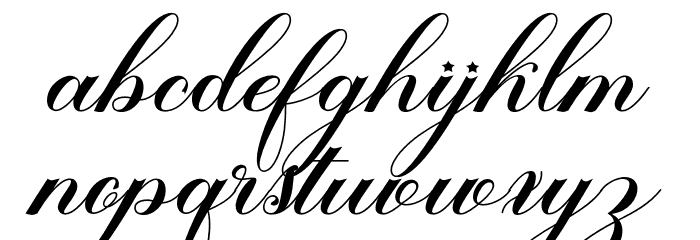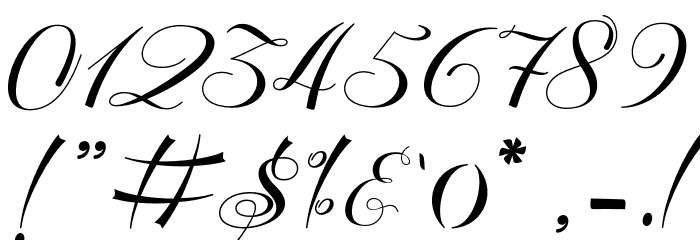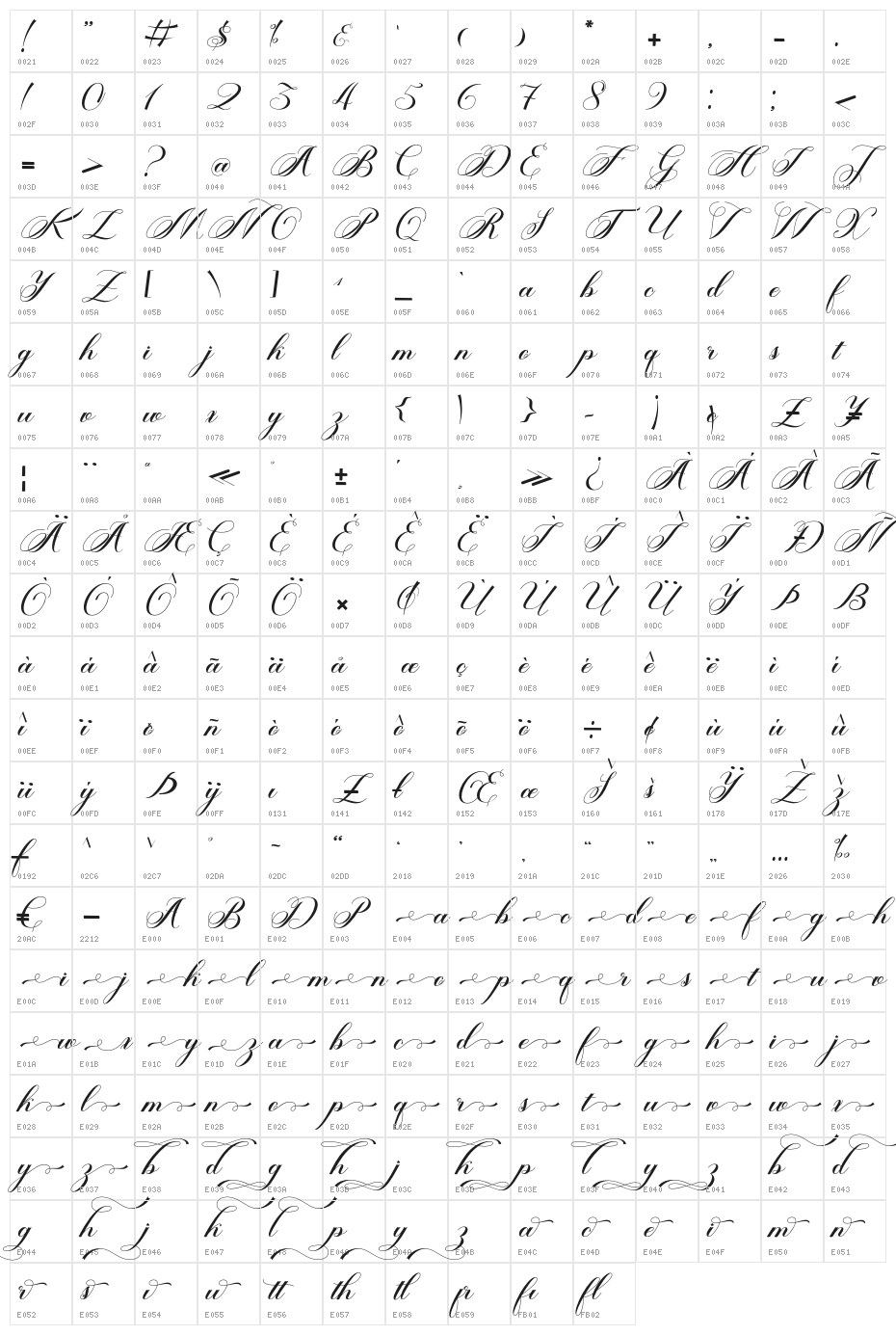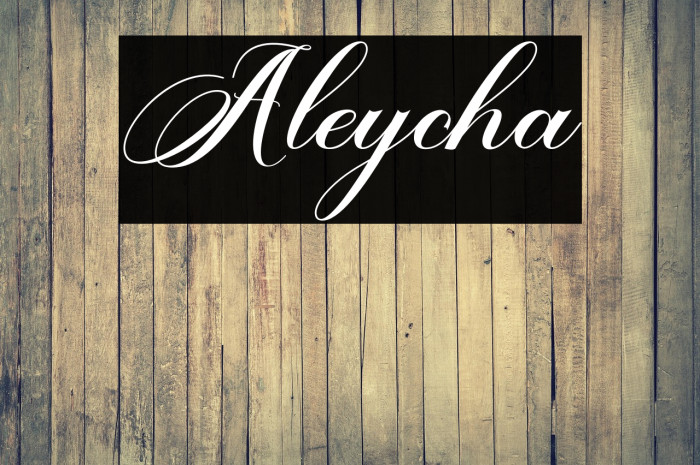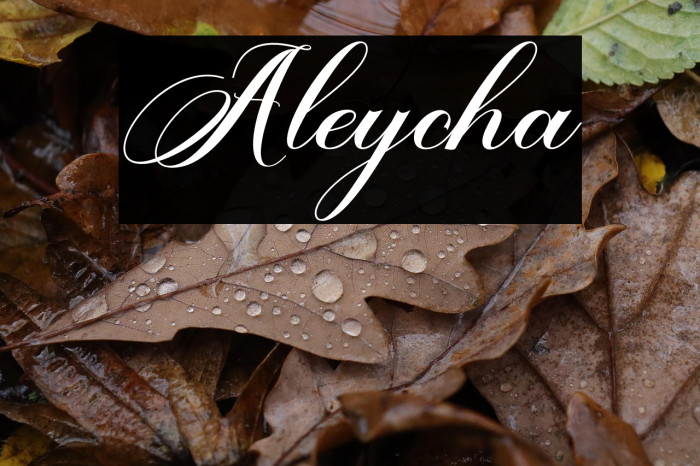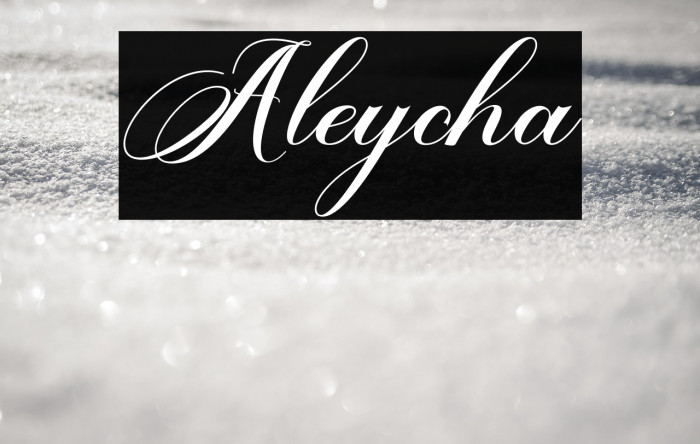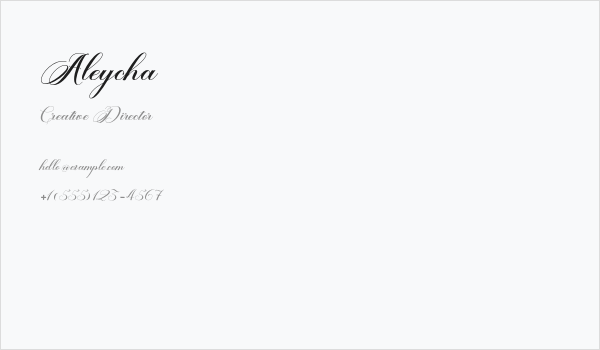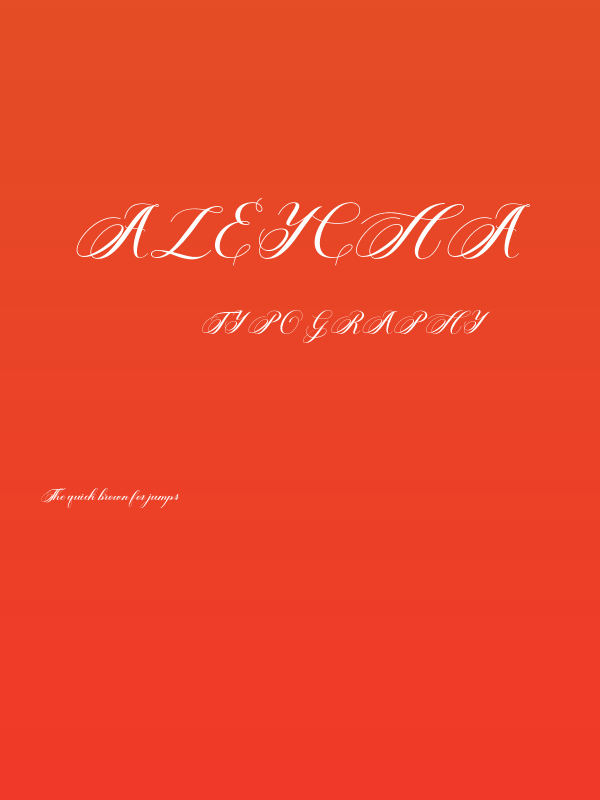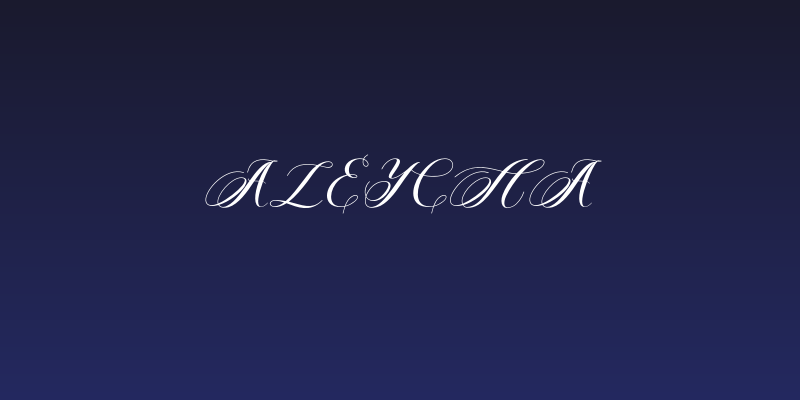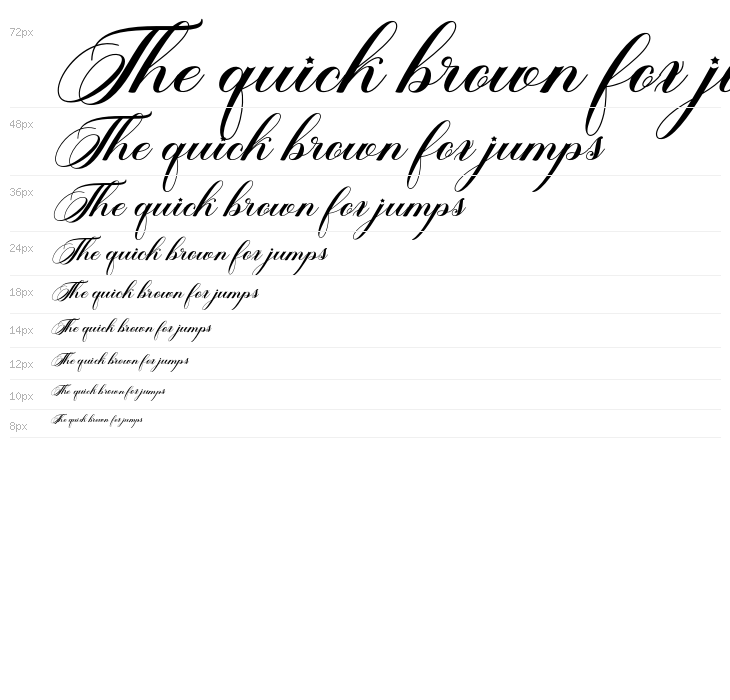
Aleycha Font
This elegant script font features a flowing, cursive style with intricate loops and flourishes. The uppercase letters are particularly ornate, with sweeping lines that extend beyond the baseline and cap height, creating a sense of movement and grace. The lowercase letters maintain a consistent style, with smooth connections between characters that enhance readability while preserving the decorative nature. The numerals and special characters are designed to match the overall aesthetic, with similar curves and embellishments. This font exudes sophistication and is ideal for formal occasions.
An elegant script font with flowing, ornate characters and intricate flourishes.
- Font: Aleycha
- Proposed Projects: Ideal for wedding invitations, elegant branding, luxury product packaging, and formal event programs.
- Category: Script
- Character Spacing: Tight
- Use Case: Logos, Invitations, Branding